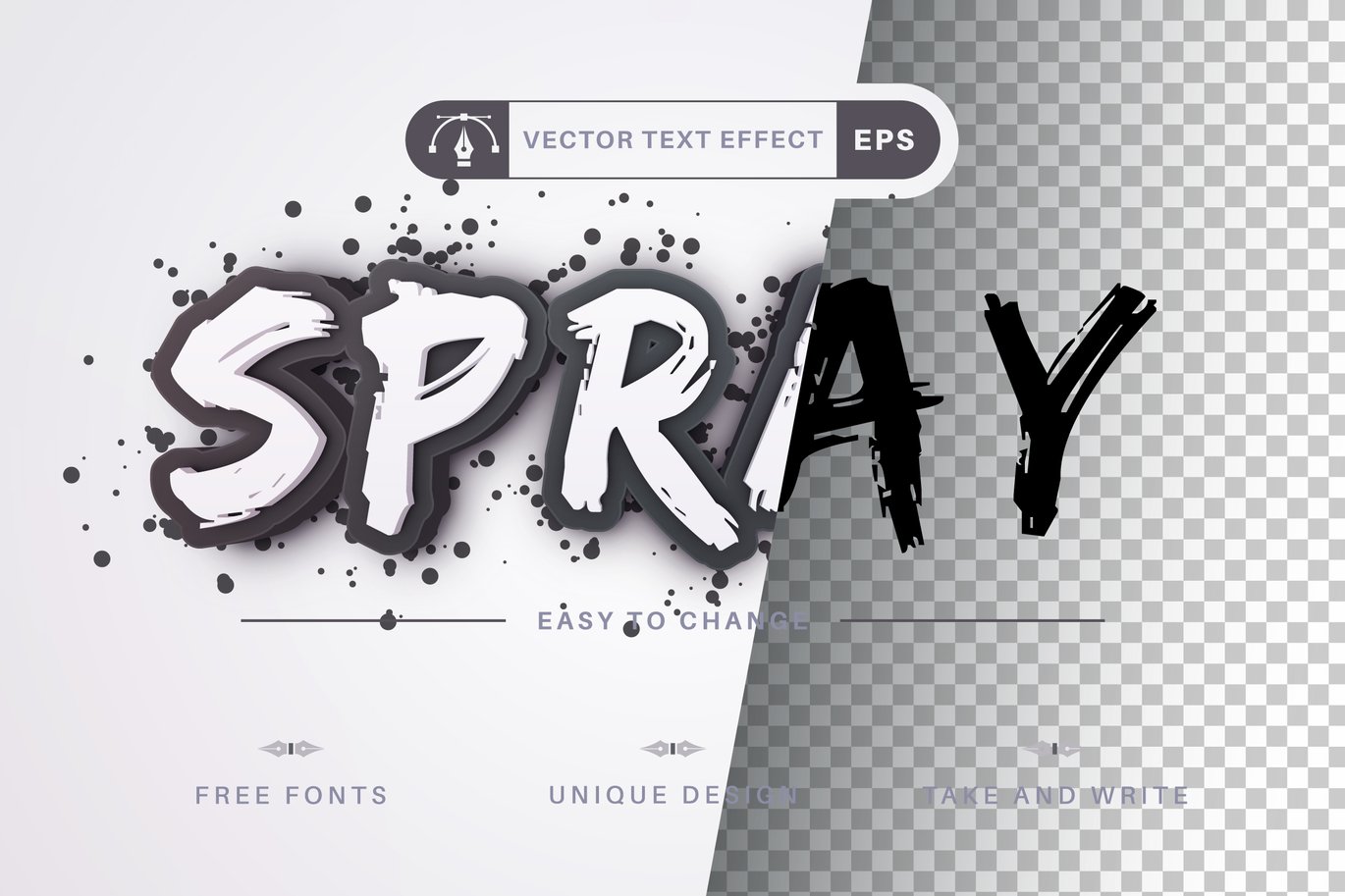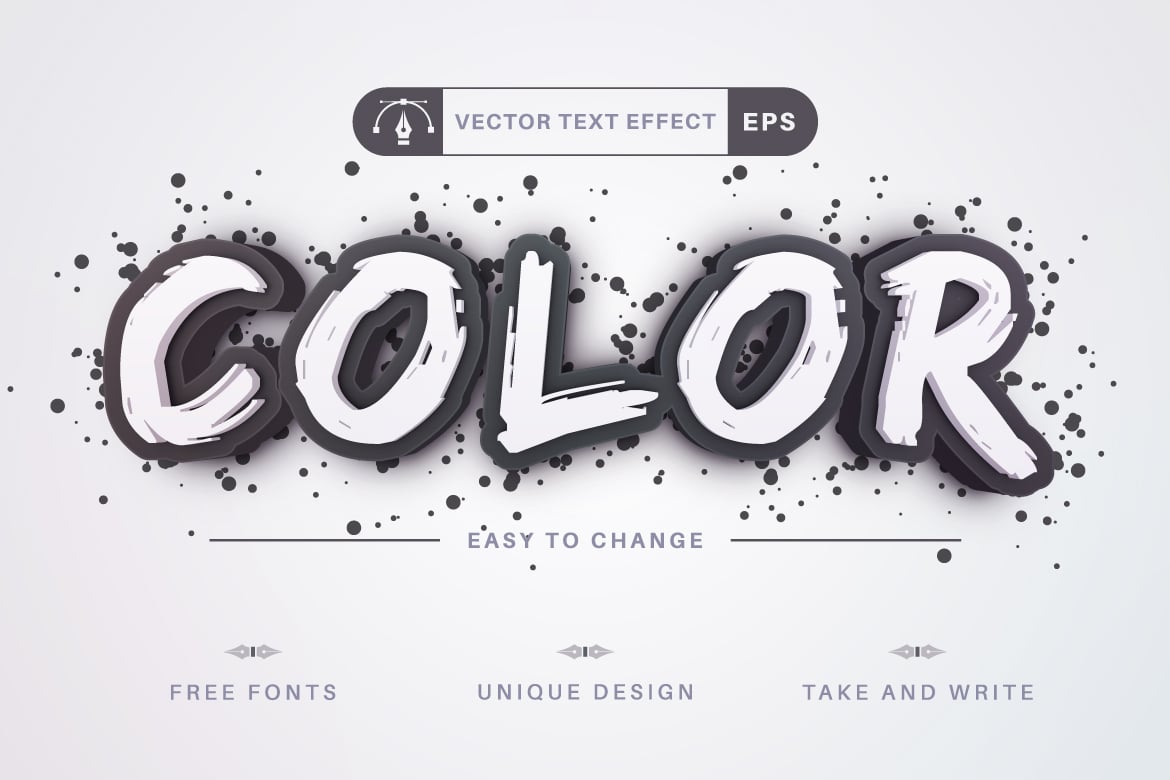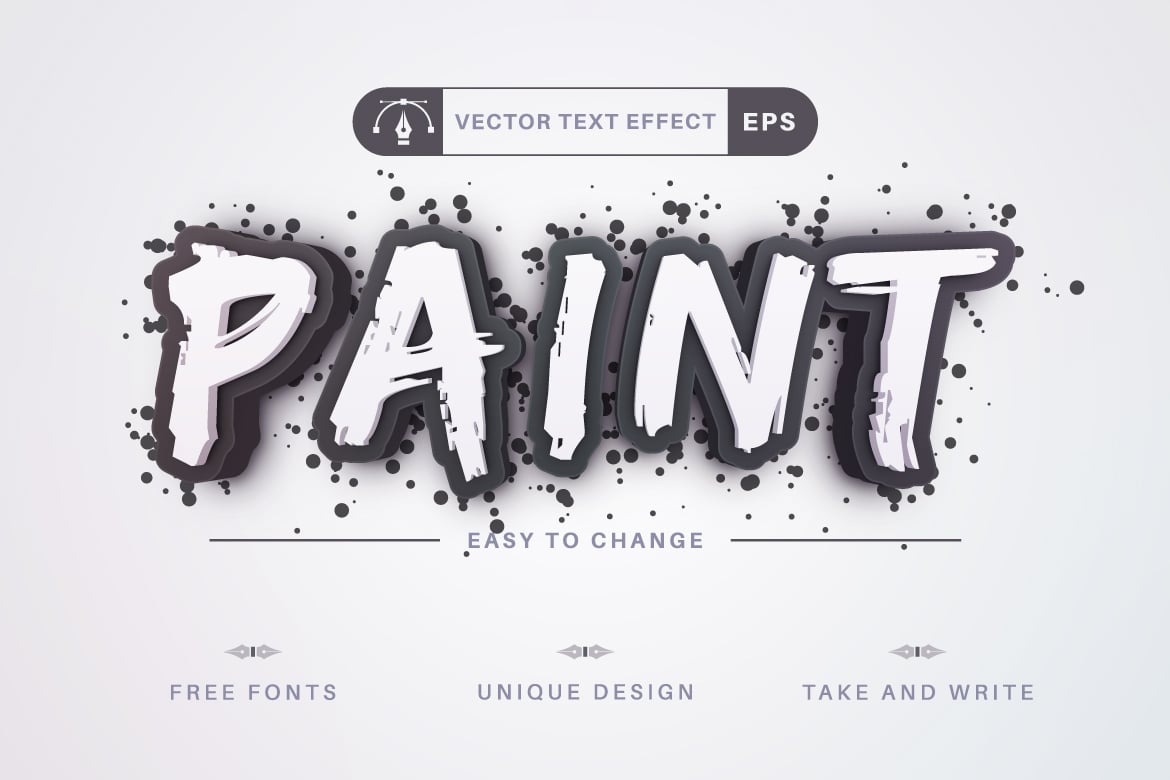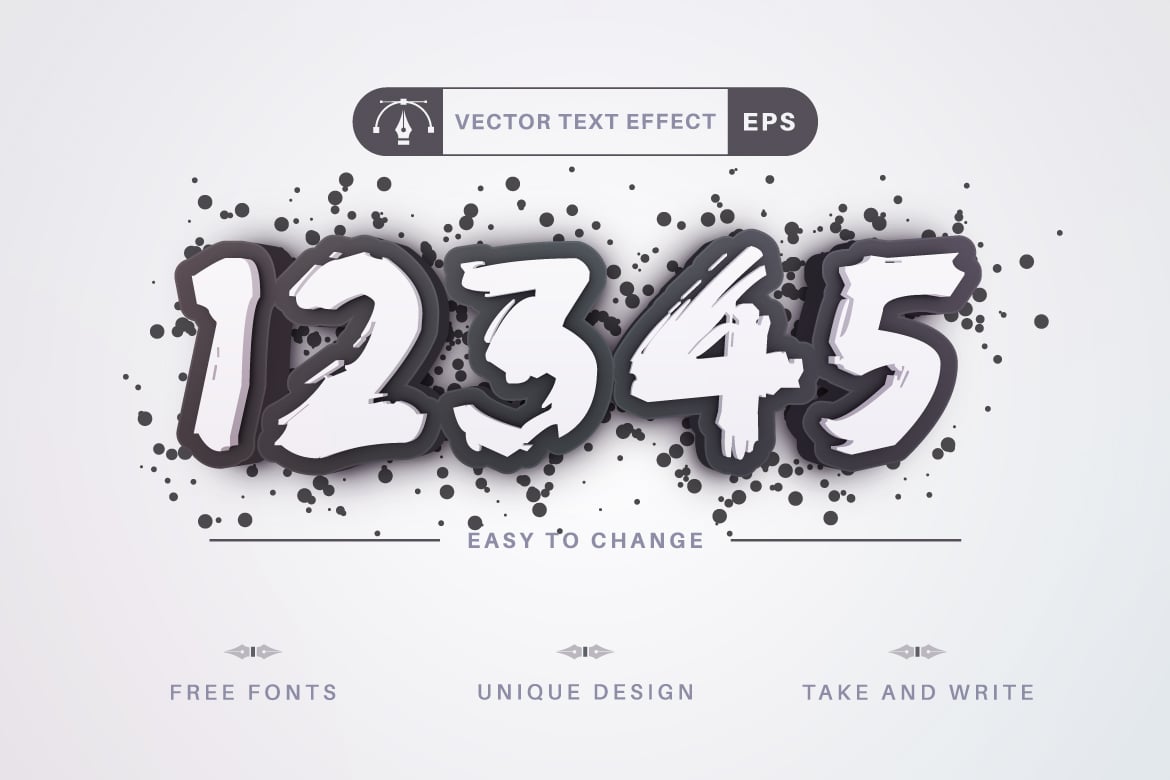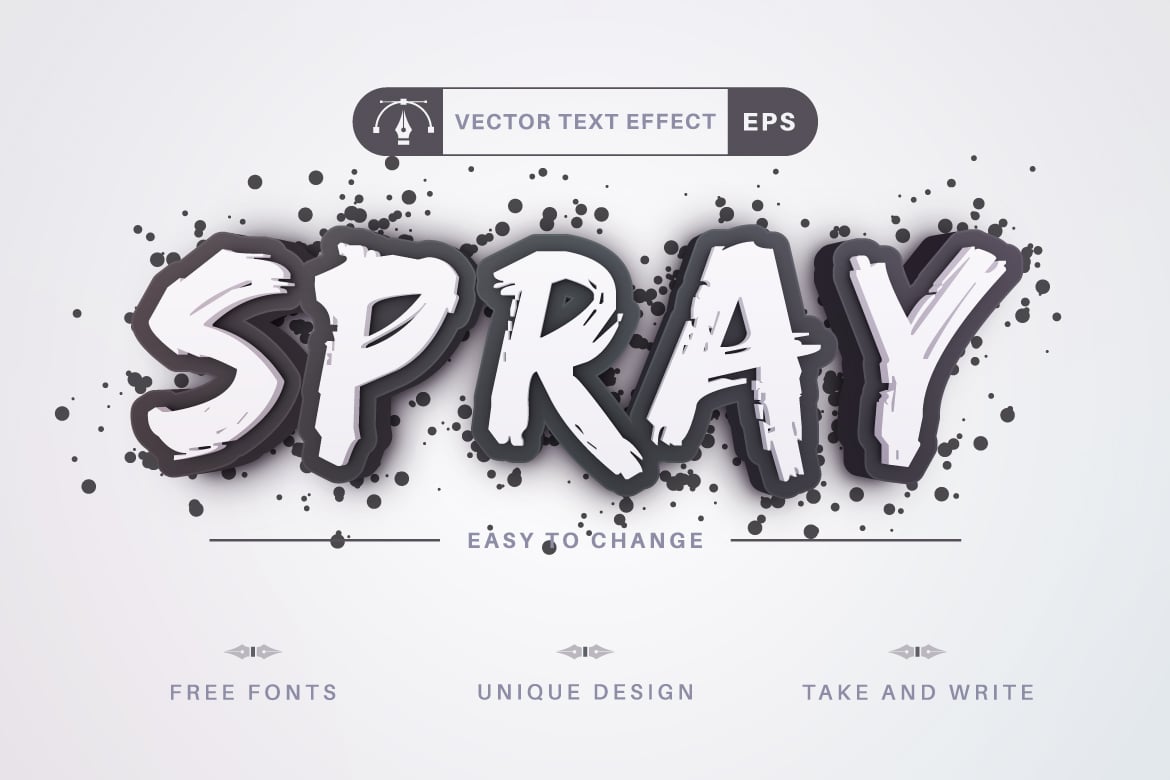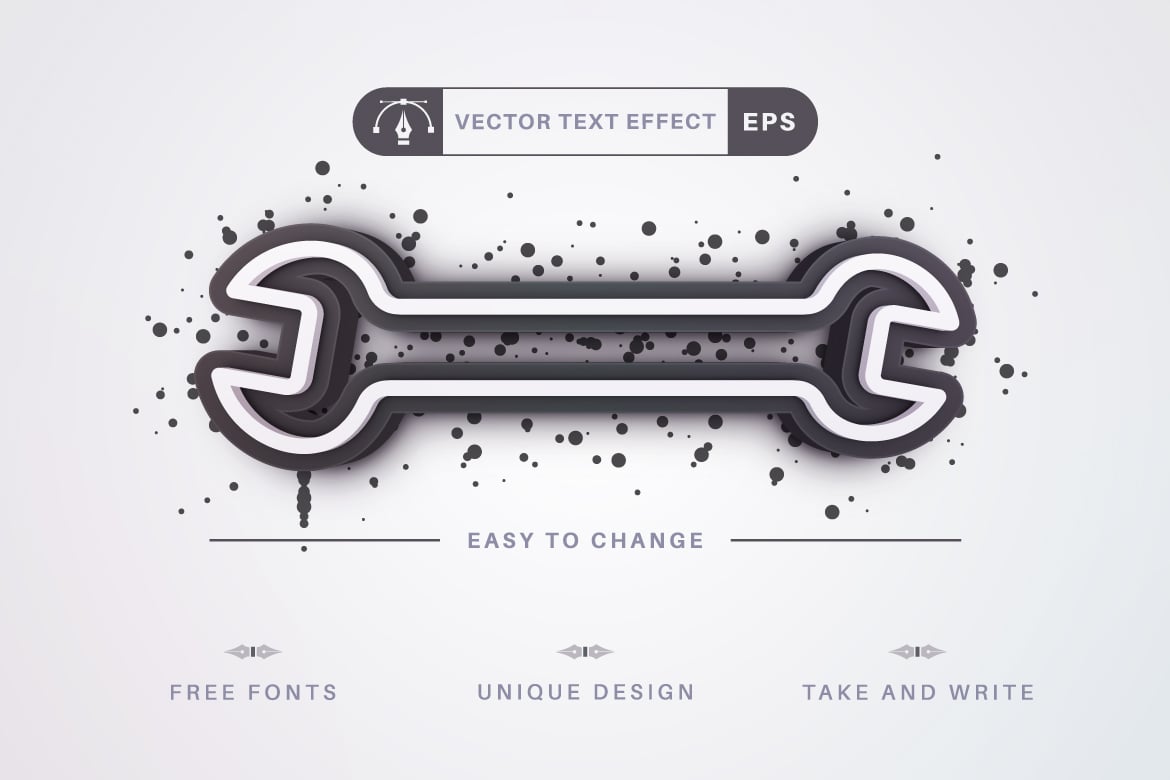
Spray – Editable Text Effect, Font Style
I’m glad to introduce my new vector text effect “Spray”.
Be as creative as you like to be in expressing yourself using these unique text effects.
The effect is perfect for any project that needs a unique handy touch whatever else your imagination leads you to!